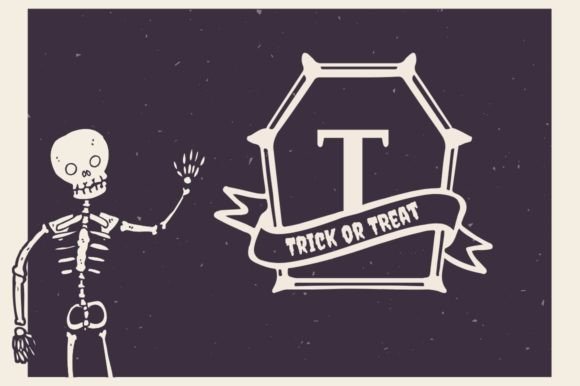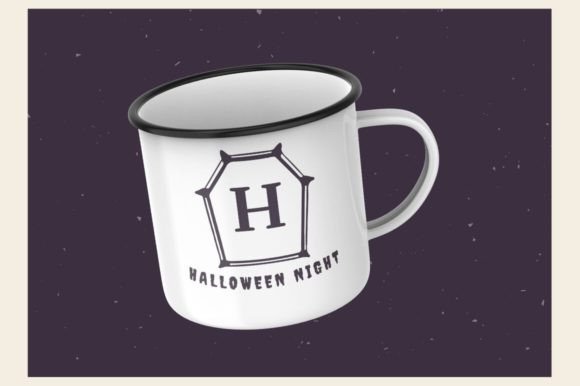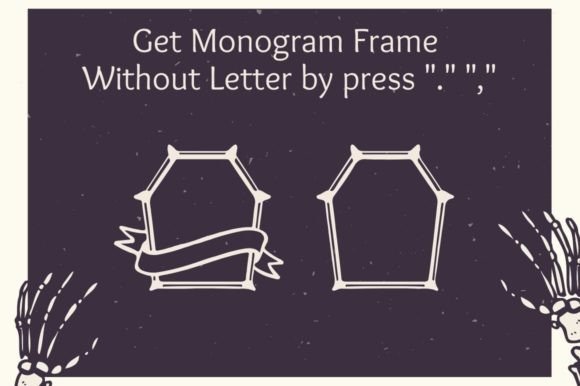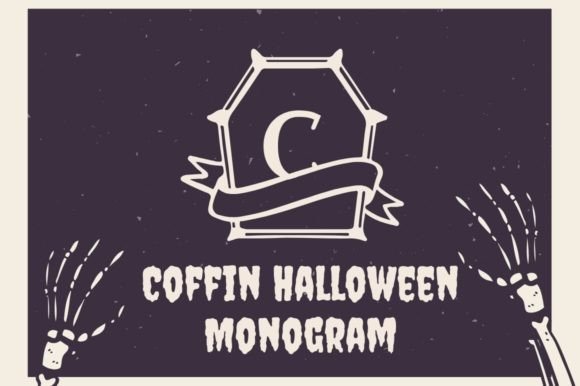
Coffin Halloween Monogram Font: Free Download Now
Introduction to Coffin Halloween Monogram Font
Coffin Halloween Monogram is halloween theme monogram font, spooky, scary & perfect for your halloween special occasions, business designs, logos, branding, social media posts, and wedding cards.
Key Features of Coffin Halloween Monogram Font
Why Choose Coffin Halloween Monogram Font?
Coffin Halloween Monogram Font offers exceptional quality and versatility, making it a valuable addition to your design toolkit. Whether you’re creating for personal projects or commercial use, Coffin Halloween Monogram Font delivers professional results.